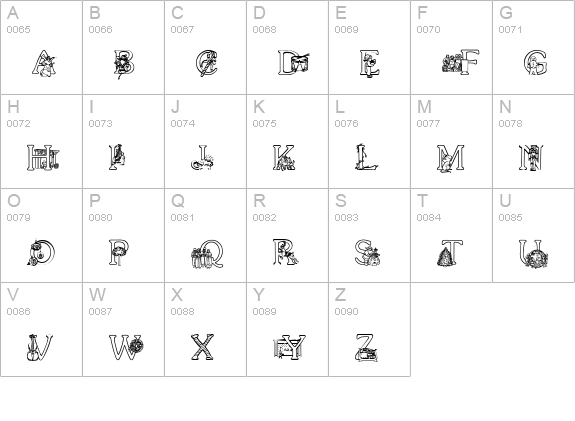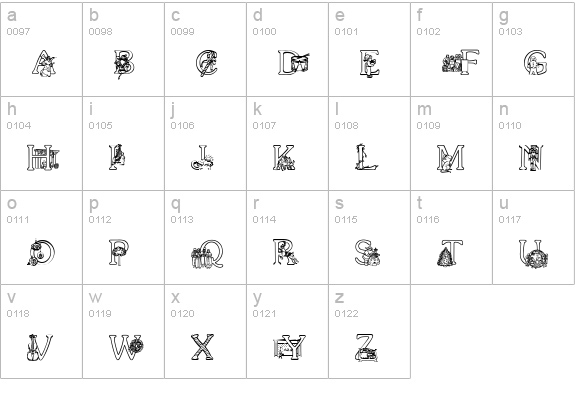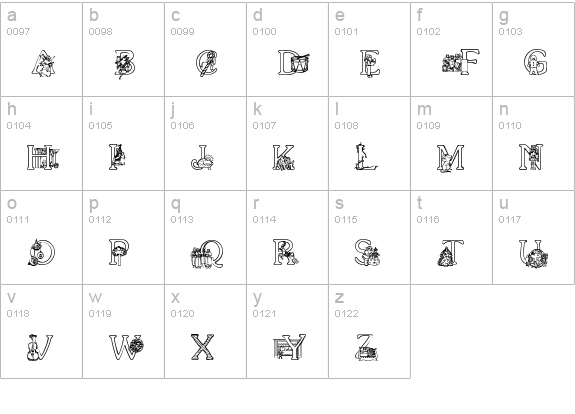
XmasAlpha Font Details
Introducing XmasAlpha font, the perfect typeface to add a touch of festive cheer to your holiday designs. With its whimsical and playful letterforms, XmasAlpha captures the essence of Christmas in every character. This delightful font is not only visually stunning but also versatile, making it suitable for a wide range of creative projects. What sets XmasAlpha font apart is the fact that it is absolutely free. That's right, you can download and use this font without any cost. Whether you're designing holiday greeting cards, creating eye-catching social media graphics, or crafting beautiful gift tags, XmasAlpha font will effortlessly bring your visions to life. With its unique and captivating style, XmasAlpha font is sure to make a lasting impression. The carefully crafted details and intricate flourishes add a touch of elegance, making it the perfect choice for adding that extra sparkle to your Christmas-themed designs. And the best part? XmasAlpha font is freely available for download at FontsMarket.com. Simply visit the website, search for XmasAlpha font, and download it in just a few clicks. No hidden fees or subscriptions required. It's as simple as that! So, if you're looking to infuse your holiday designs with a dash of festive magic, look no further than XmasAlpha font. With its joyful and enchanting aesthetic, this font is guaranteed to bring warmth and cheer to your creative projects. Download XmasAlpha font for free today at FontsMarket.com and let your imagination run wild this Christmas season.